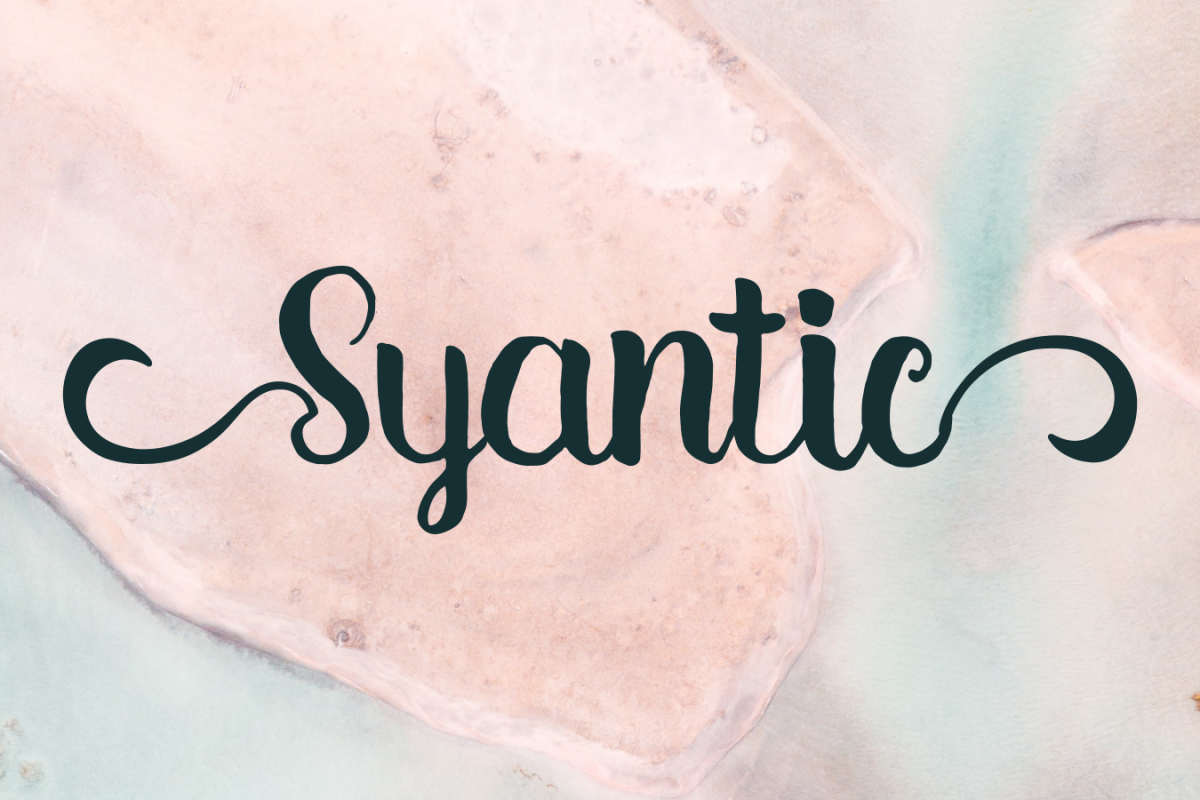
Syantic Handwritten Script
Syantic
Syantic is a beautiful charm handwritten script. it will affect any design into calm and cool like the snow. simple alternate, just put { at the beginning and } at the end of words.